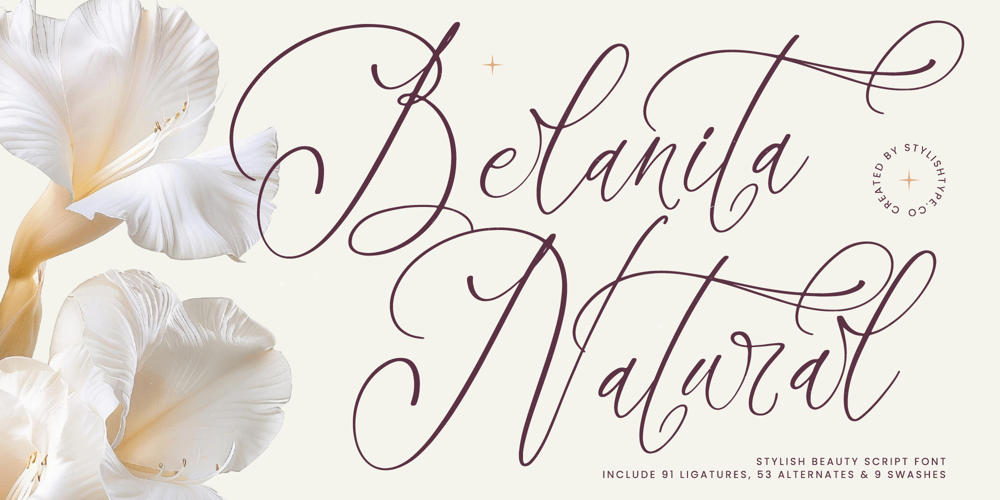
Belanita Natural Font Family was designed by Heru Utama Putra and published by Stylishtype Studio. Belanita Natural contains 2 styles and family package options. Belanita Natural – Stylish Beauty Script Font , from Stylishtype , Suitable for any projects such as: logos, branding projects, homeware designs, product packaging, mugs, quotes, posters, shopping bags, t-shirts, book covers, name card, invitation cards, greeting cards, label, photography, watermark, special events, and all your other luxury and beautiful projects that need a Luxury Script taste.